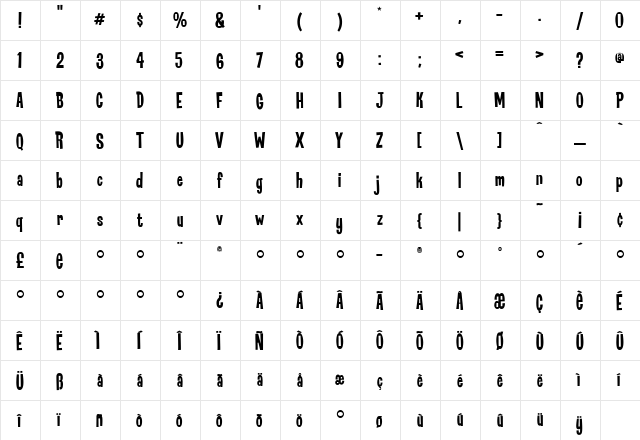
CoopCondensed Medium
Medium · Brand Design Co., Inc  ·
Foundry Brand Design Co., Inc
Design Context for CoopCondensed Typeface
CoopCondensed offers clean, dependable letterforms without strong stylistic allegiance, making it a practical choice for designers who need flexibility. Its narrow stance lets it pack a punch even in space-constrained designs.